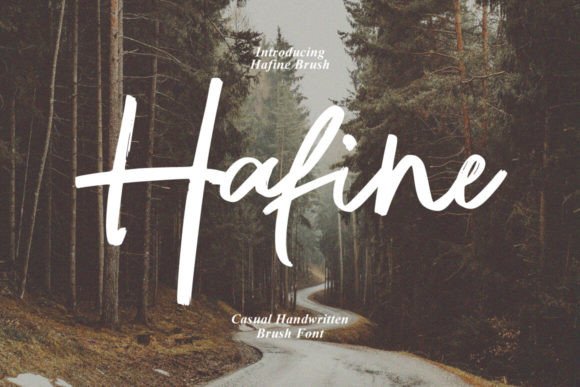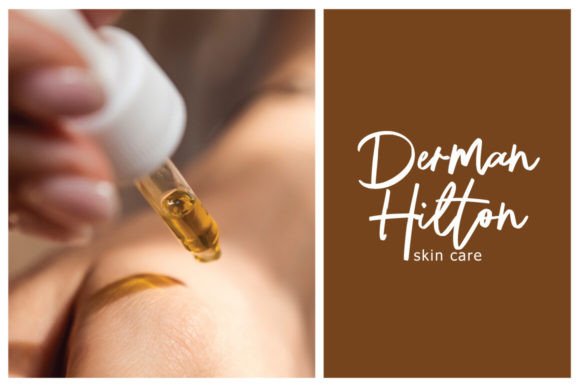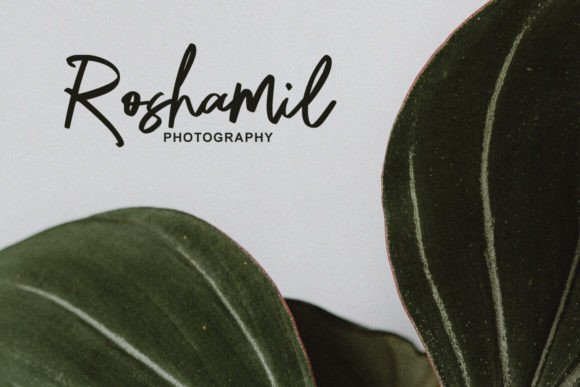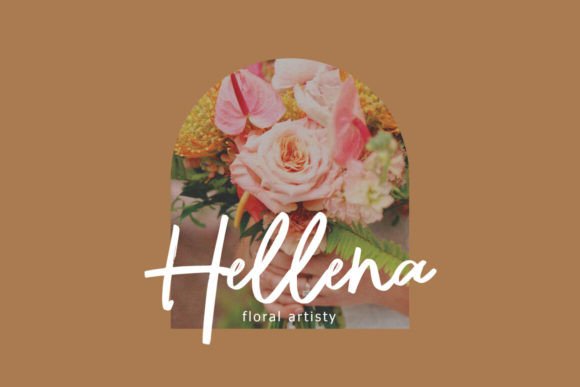
Hafine Brush Font: A Chic Handwritten Script for Signature Logo Design
About the Hafine Brush Font
Hafine Brush’s expressive, hand-drawn quality makes it ideal for headlines, short text blocks on posters, and branding applications where a touch of handcrafted authenticity is desired. It excels in creating memorable logos and packaging designs that convey a sense of warmth and approachability. However, its highly textured nature makes it unsuitable for body text or UI elements; the brush strokes would hinder readability at smaller sizes.
Its personality is best described as friendly and approachable, yet with a confident boldness. Think artisanal goods, cafes, children’s books, or brands emphasizing handcrafted quality. Avoid using it for projects requiring a highly professional or minimalist aesthetic.
To create visually balanced designs, pair Hafine Brush with clean sans-serif fonts like Montserrat or Lato for body copy, or a classic serif like Playfair Display for a touch of elegance. For a more playful feel, consider pairing it with a rounded geometric sans-serif such as Circular Std.
Hafine Brush Font Usage Examples
Hafine Brush Font Example